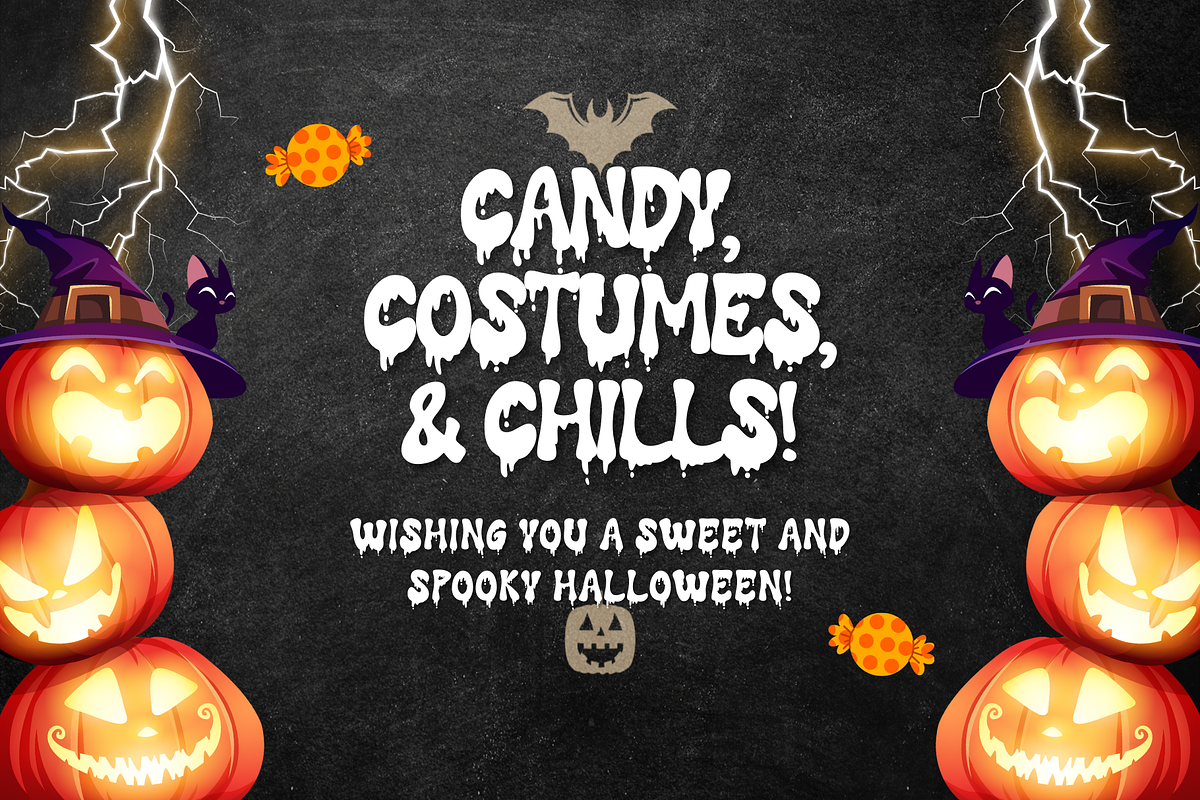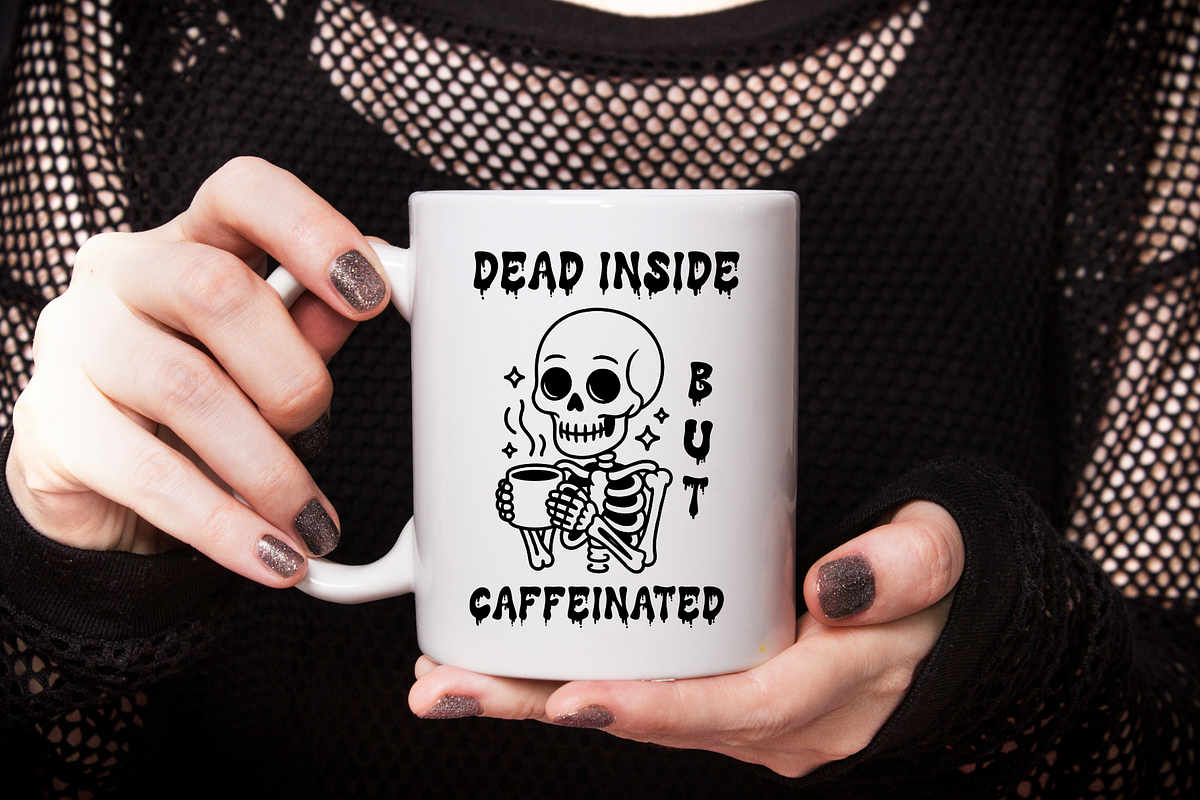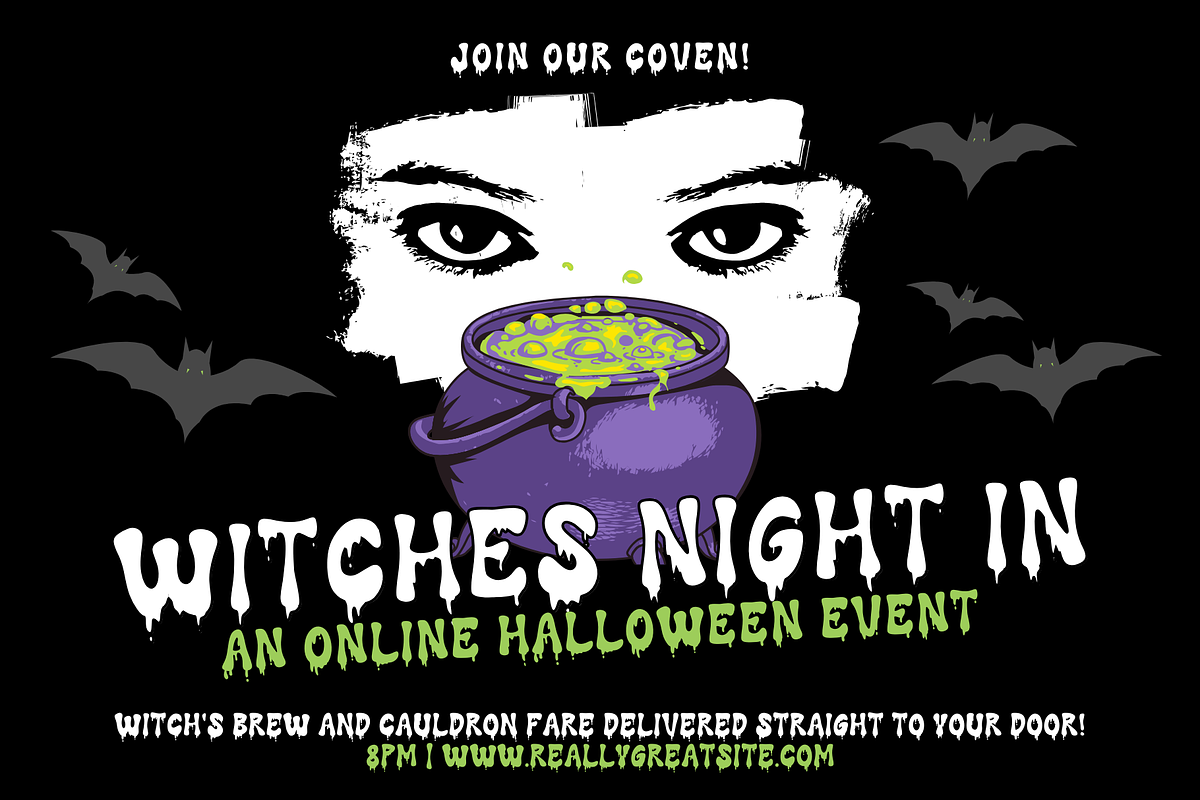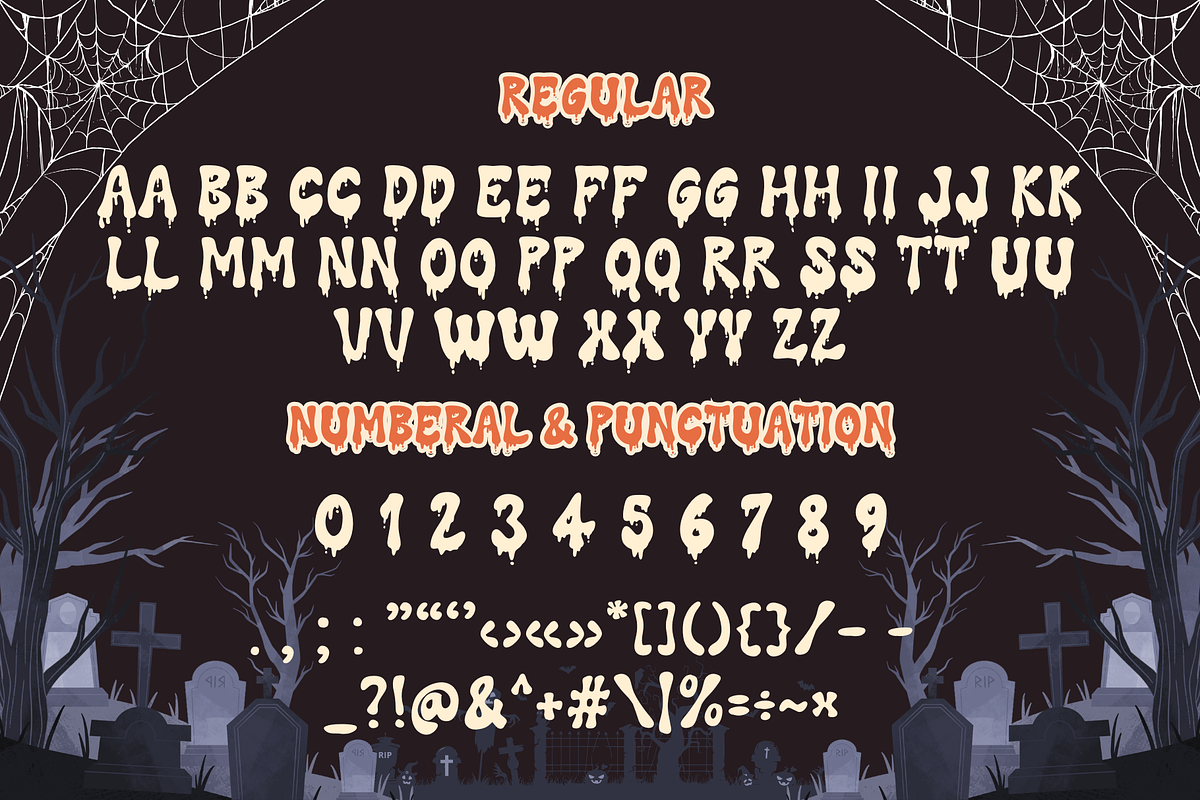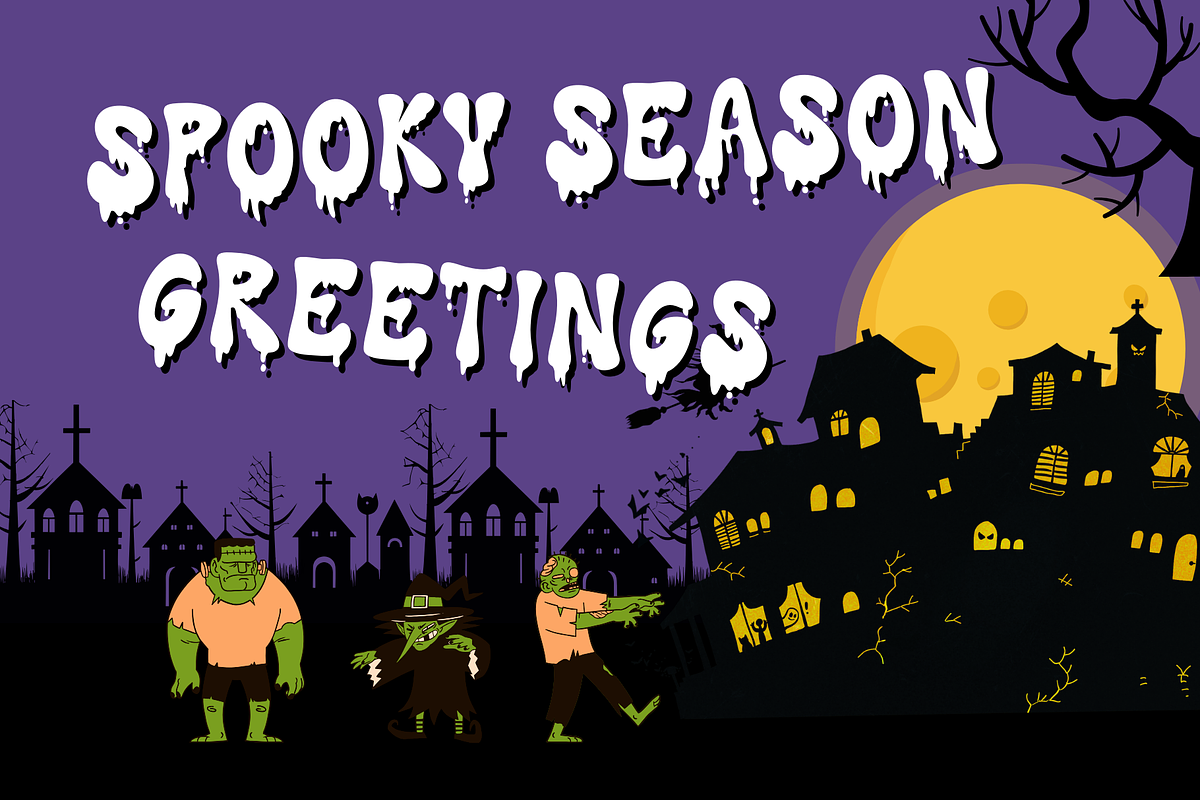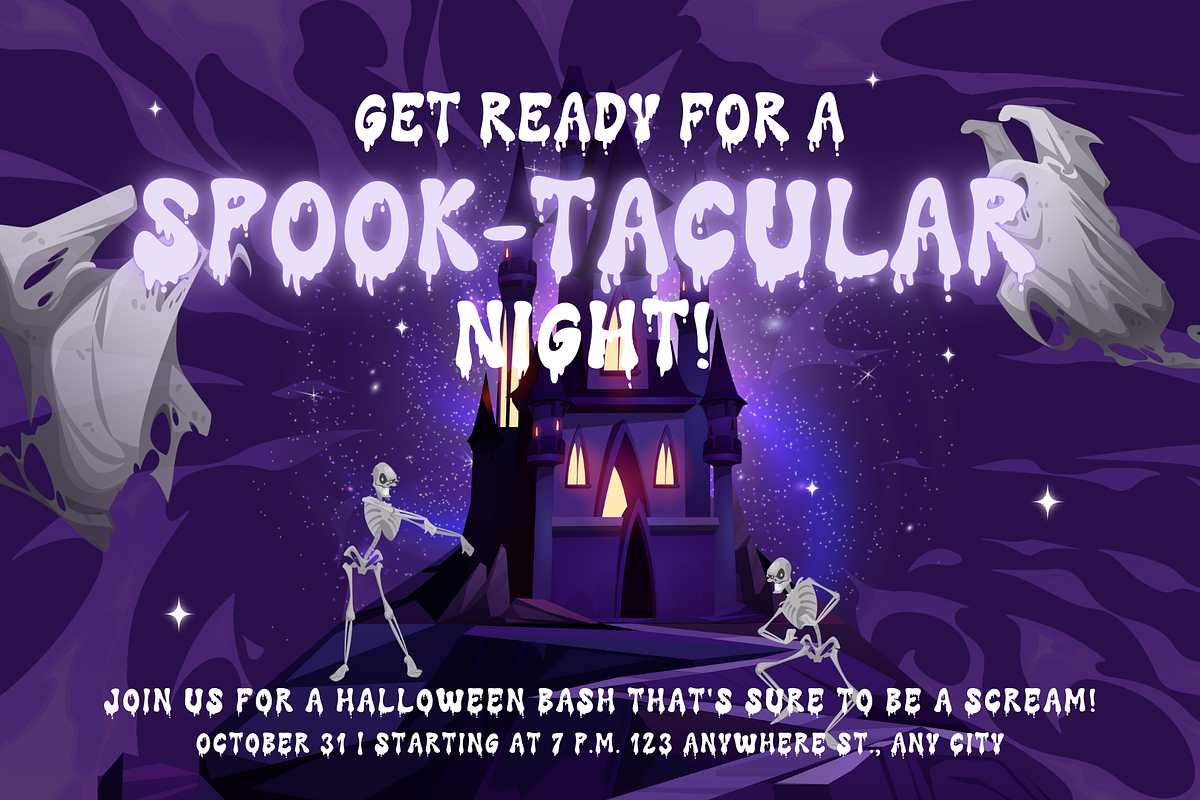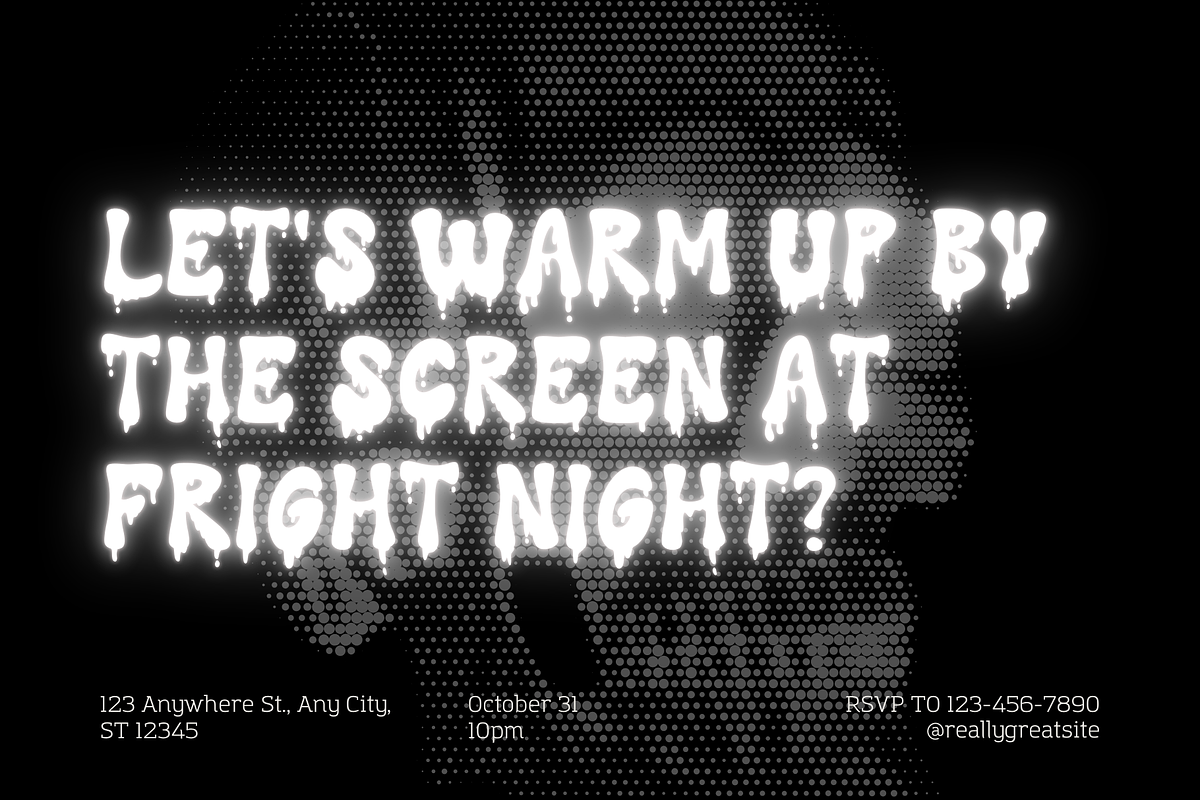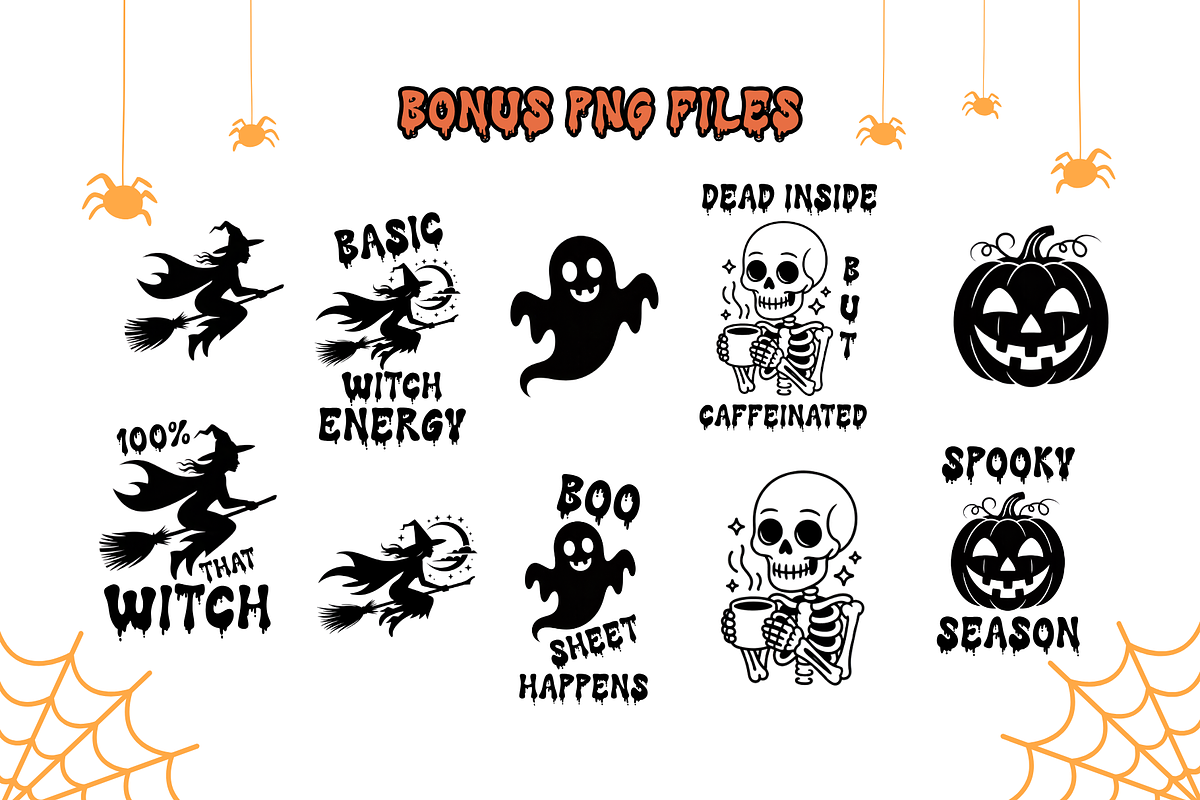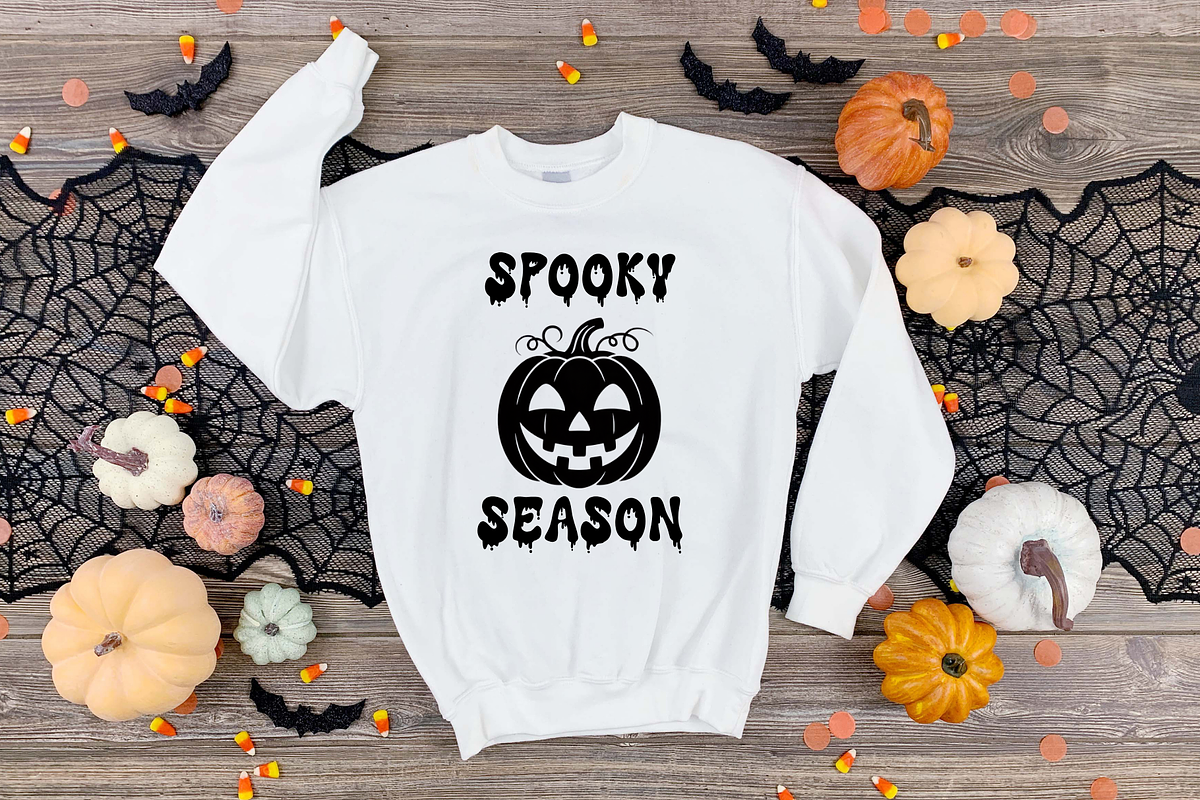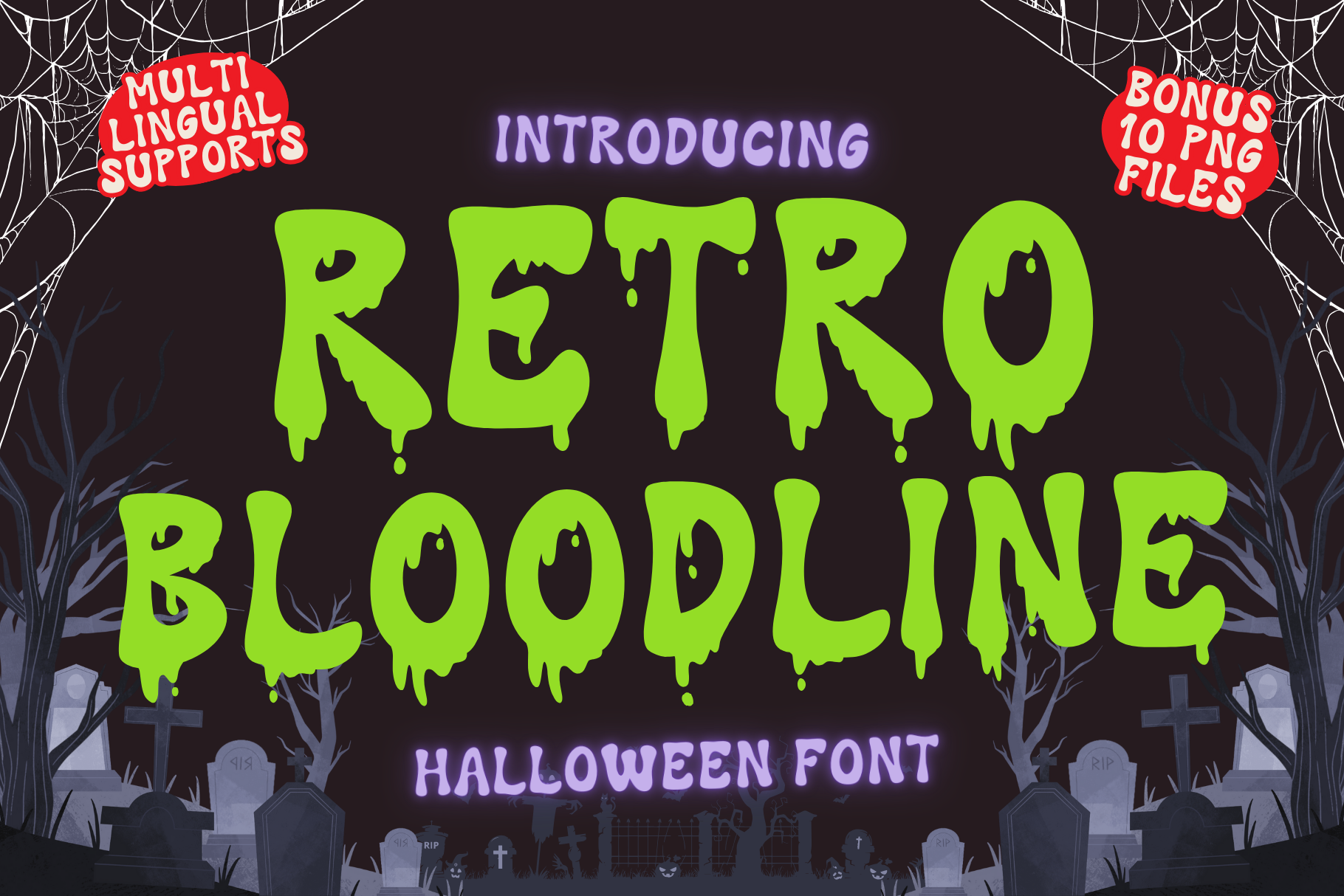
Retro Bloodline is a Halloween font
Retro Bloodline is a Halloween display font. It embodies playfulness and authenticity and is the perfect choice for all your favorite projects such as blog posts, logos, branding, ads, invitations, greeting cards, planners, photo albums, decorations, and more. Add it to any of your designs, and enjoy the results!